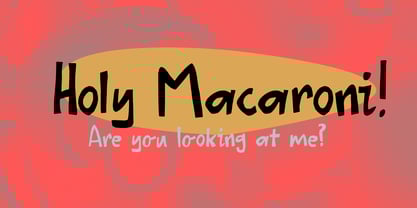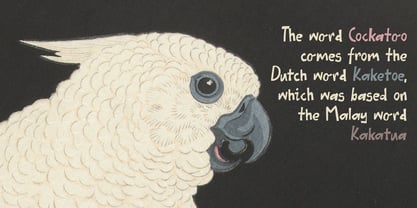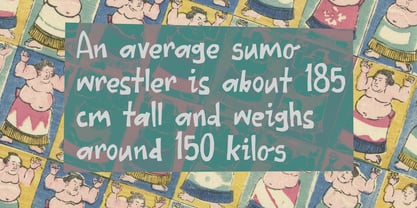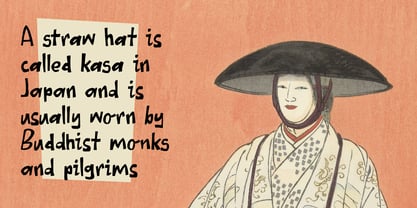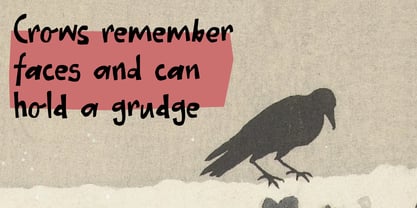
Holy Macaroni
by Kitchen Table Type Foundry
The Holy Macaroni Font Family was designed by David Kerkhoff and published by Kitchen Table Type Foundry. Holy Macaroni contains 2 styles and family package options.
My kids love Macaroni - the small elbow shaped variety. When I make it, I used ground beef, vegetables and a tomato based sauce, I mix it all up and serve it with grated cheese. It’s one of the only dishes that the kids will eat without complaining.
I made Holy Macaroni with a roller ball pen. I drew the glyphs, then scanned the paper, filled the outlines and vectorised them. The result is a messy, yet fun font which you can use for almost anything.
Designers: David Kerkhoff
Publisher: Kitchen Table Type Foundry
Foundry: Kitchen Table Type Foundry
Design Owner: Kitchen Table Type Foundry